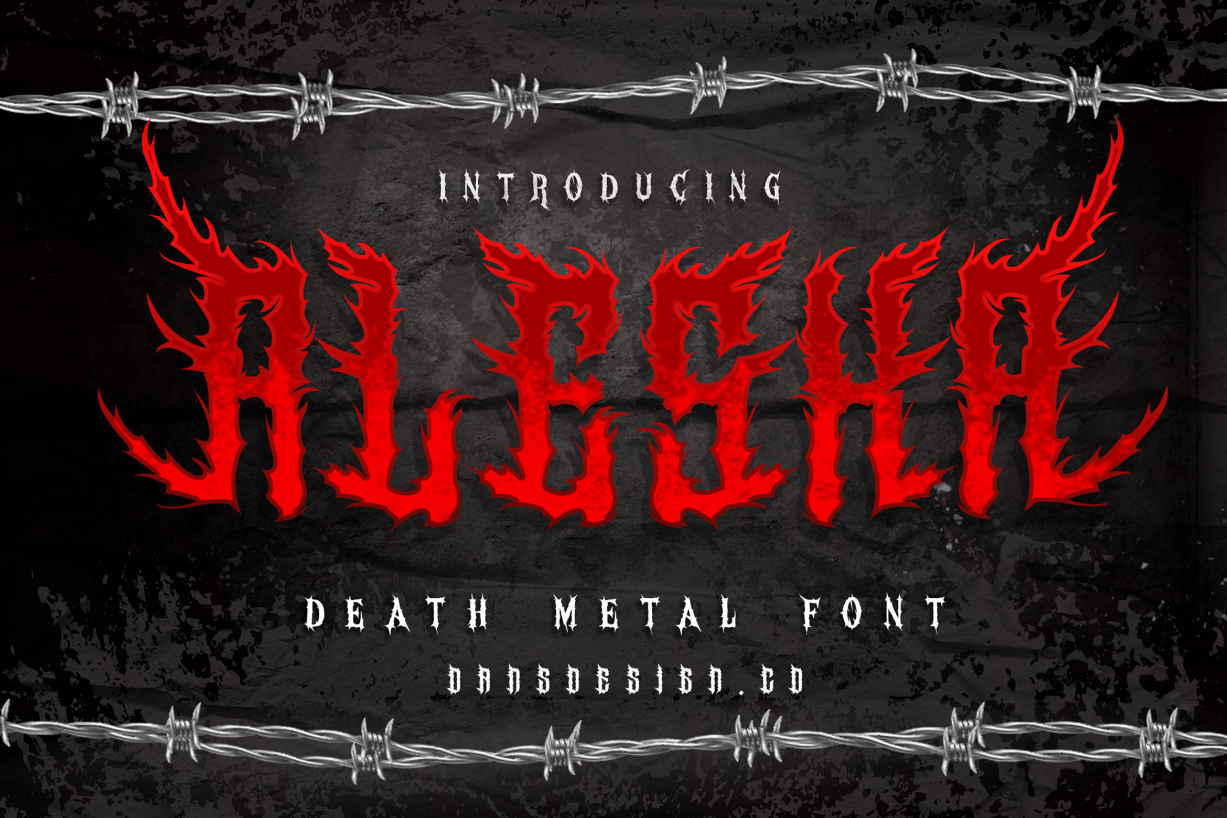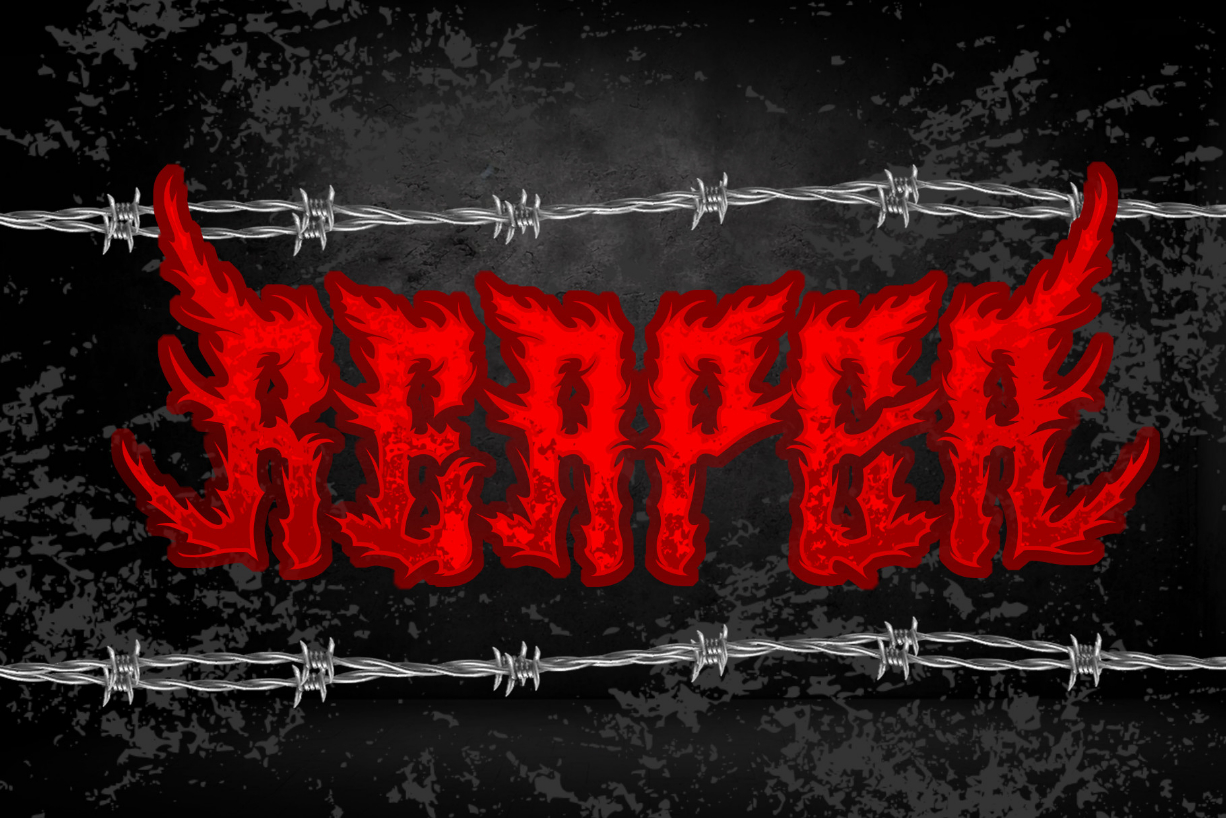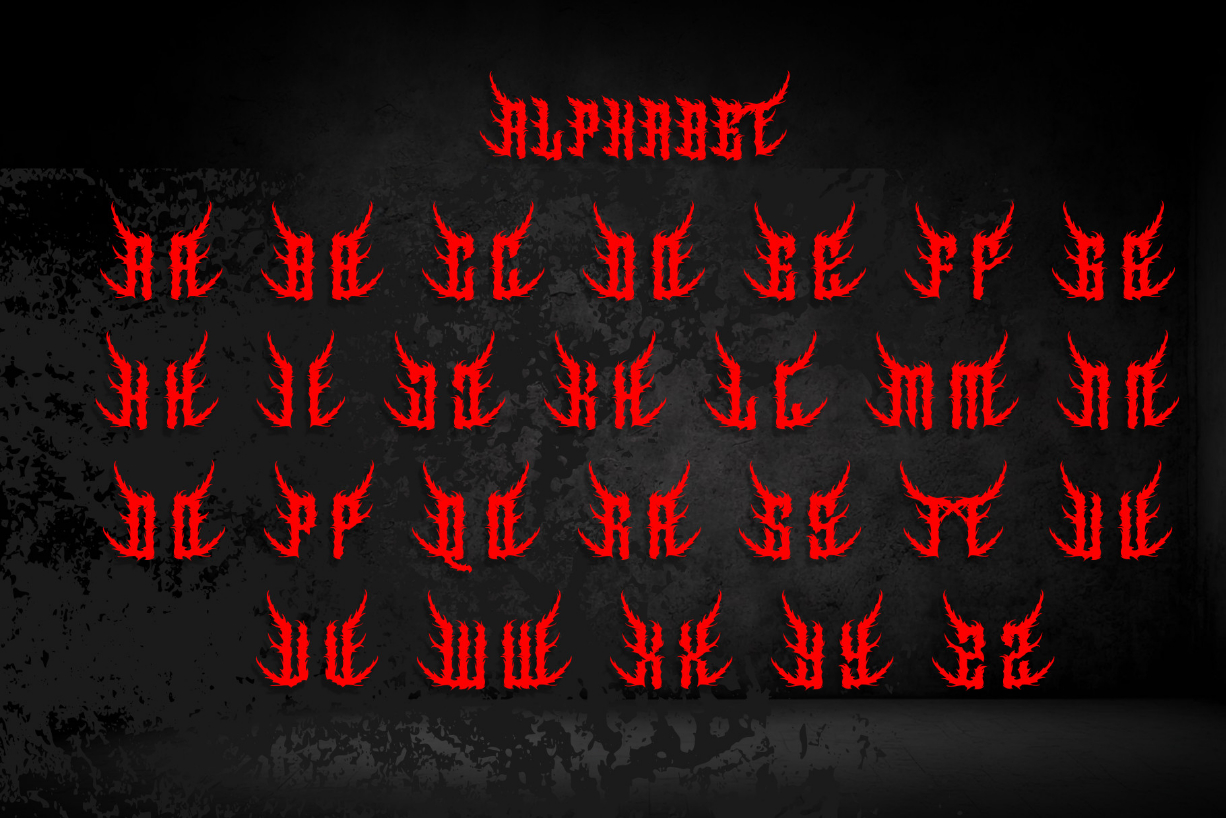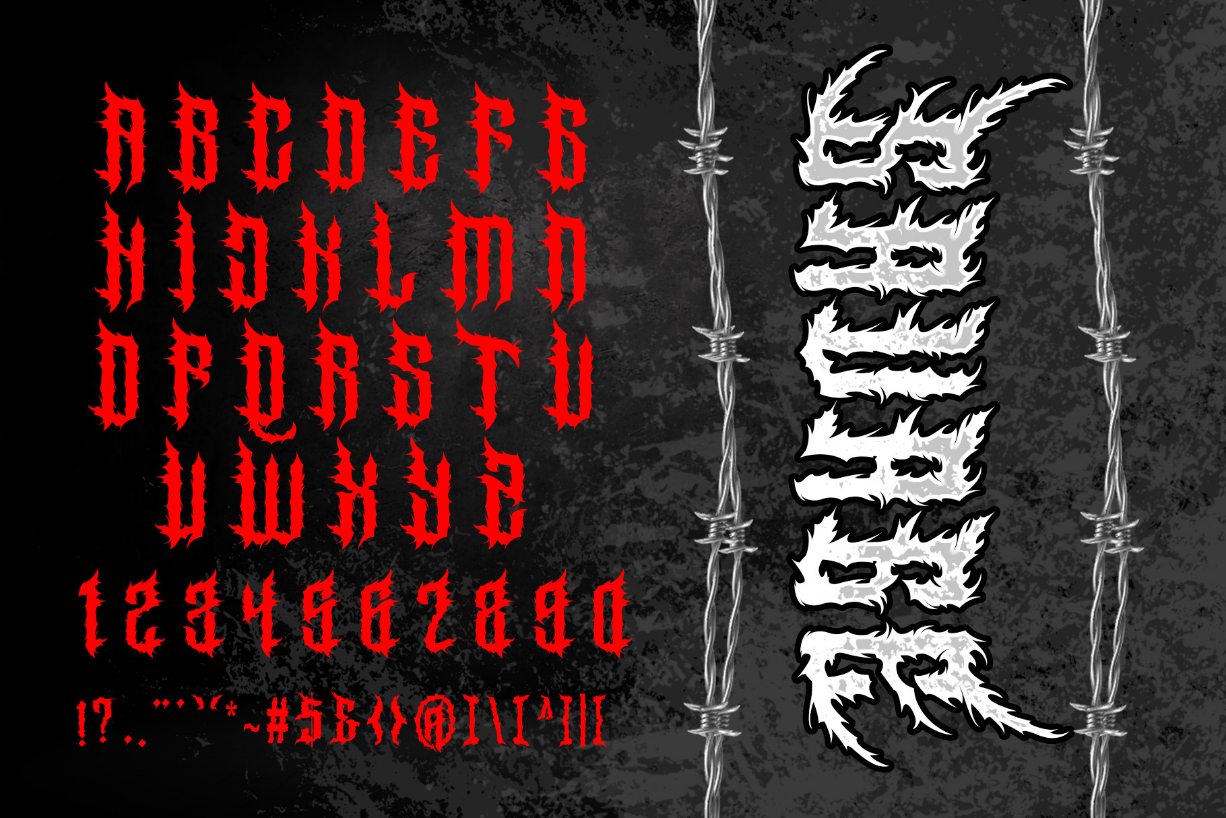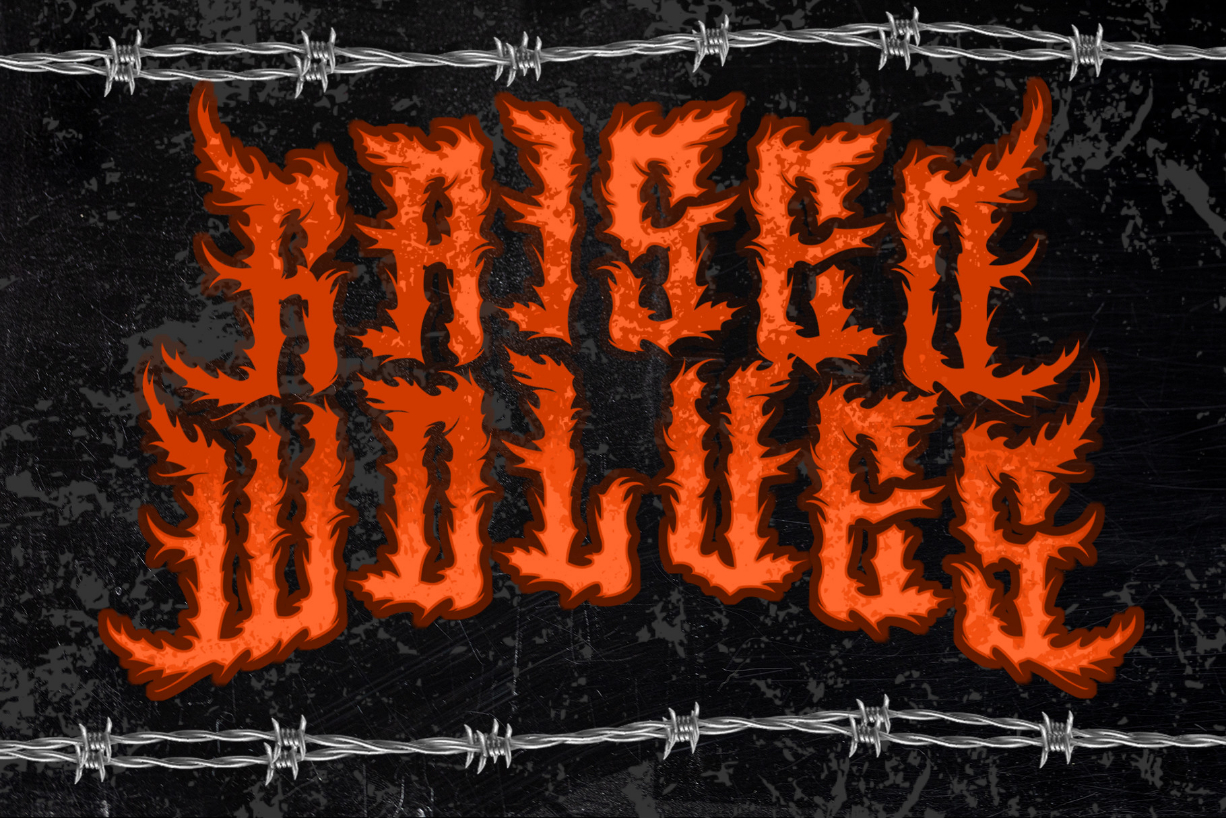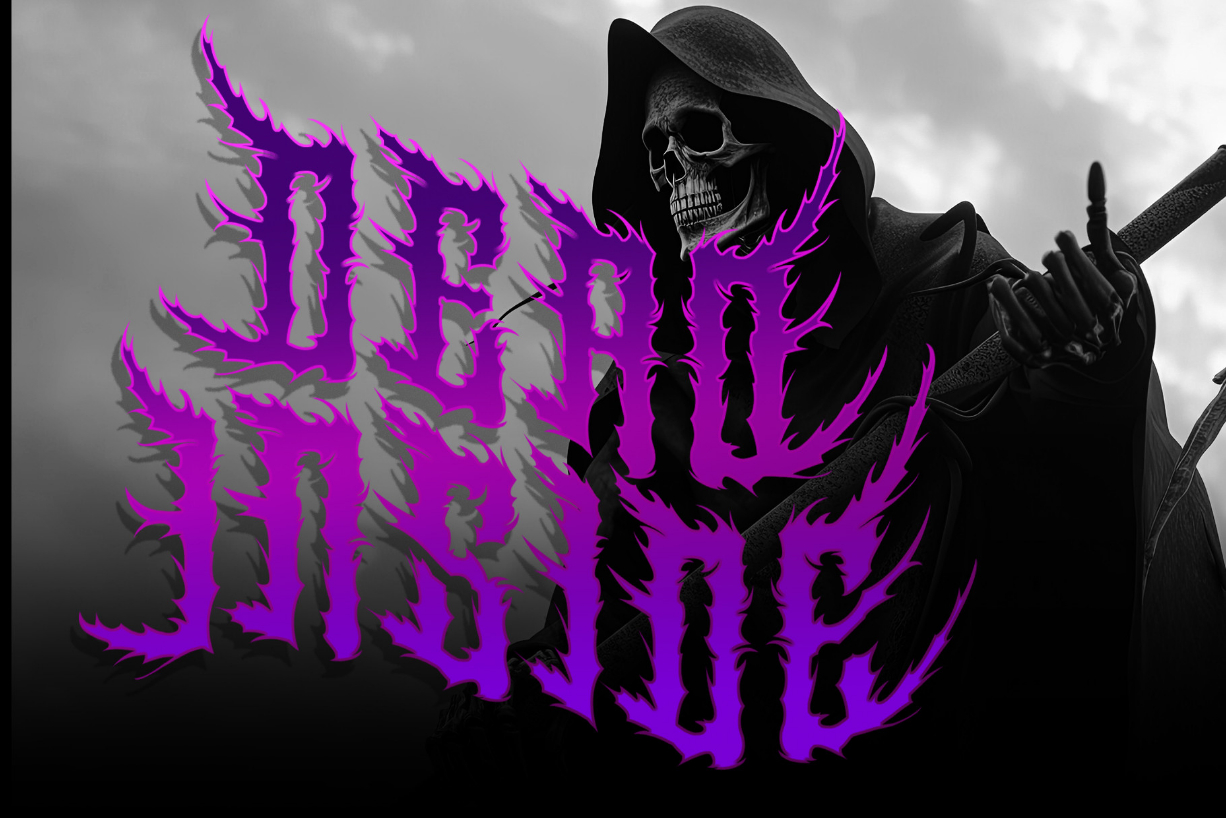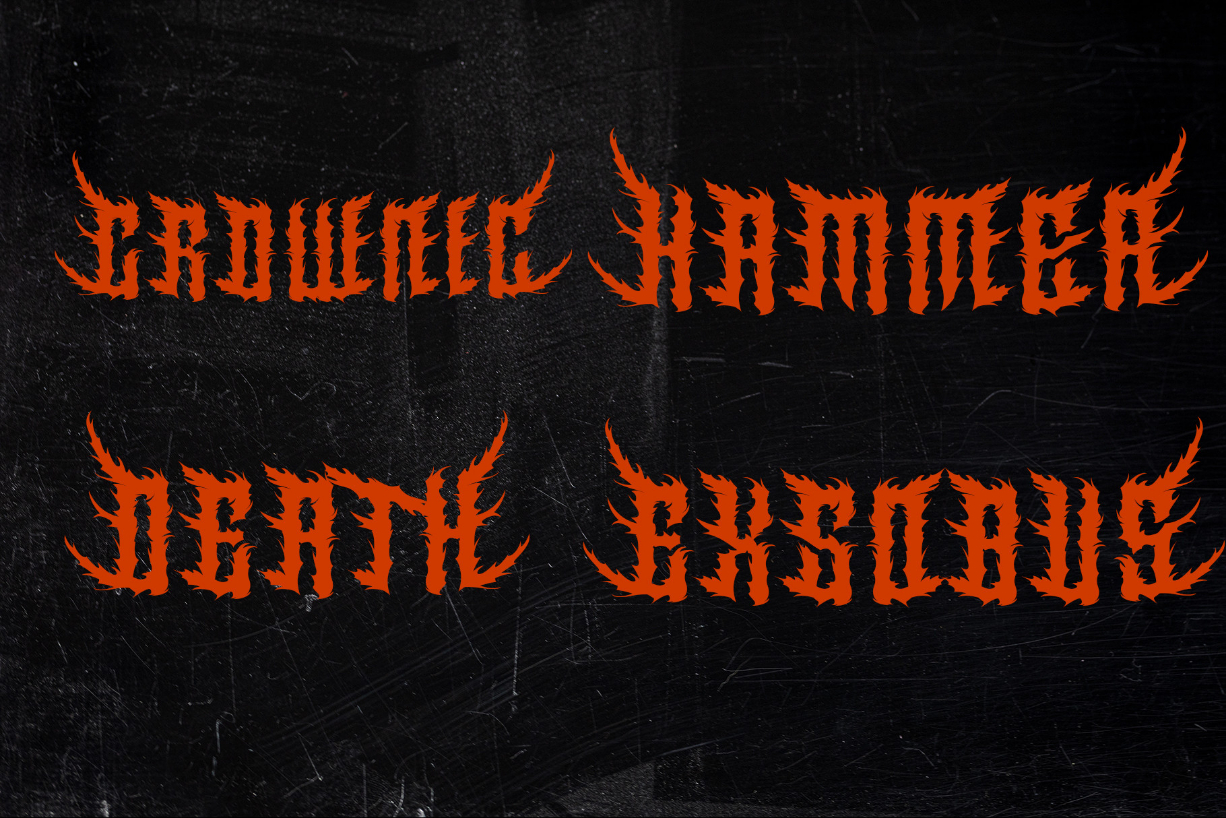
Alesa Font
About Alesa Font
Alesa is a nightmarish metal horror font that sends chills down your spine. This sinister typeface, with its sharp, twisted edges and blood-soaked texture, captures the essence of terror. Perfect for haunted themes, metal bands, and spine-tingling designs that demand attention. Let the darkness consume your text.